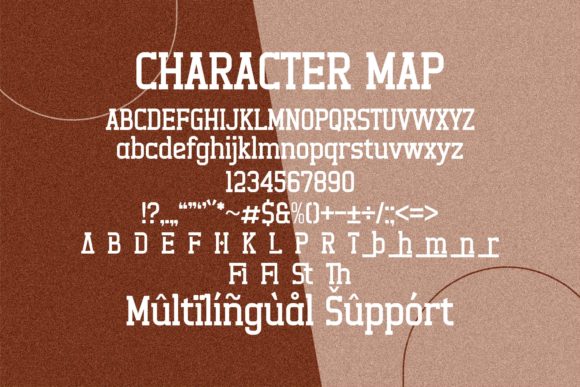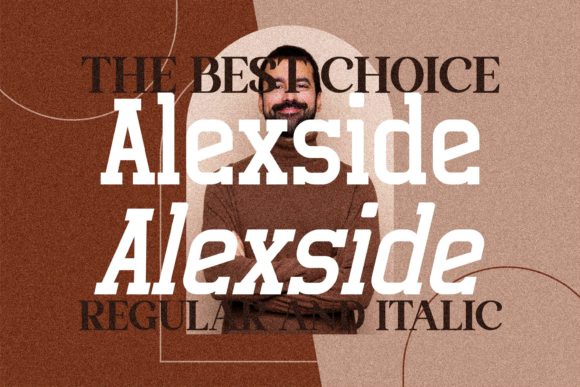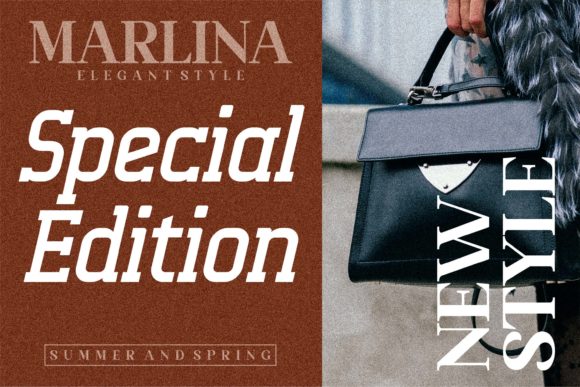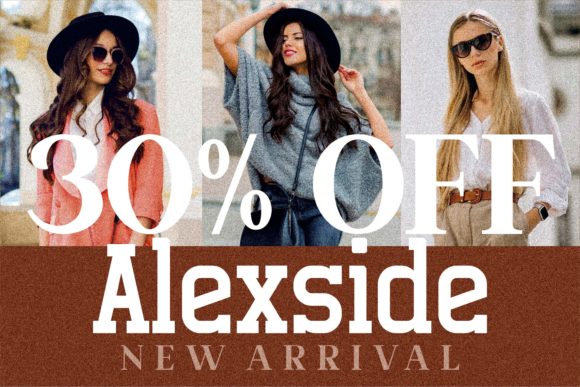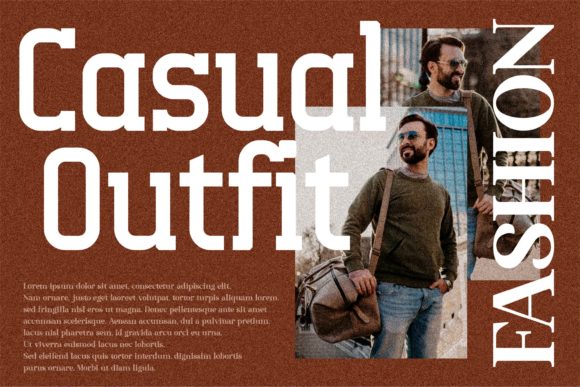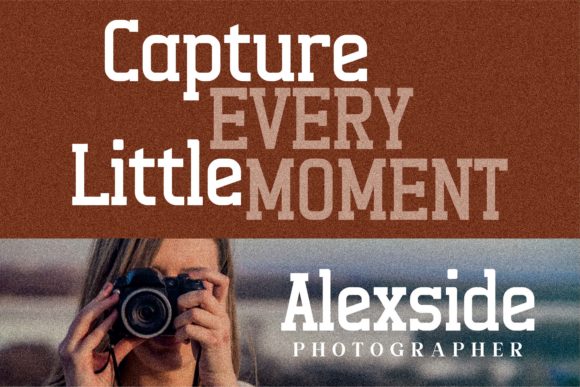
Introducing Alexside Font: The Ultimate Choice for Bold and Edgy Designs
Are you tired of using the same old fonts for your designs? Look no further than Alexside Font, a cool and bold slab serif font that’s out of this world! Expertly designed to make your creation stand out from the crowd, Alexside Font is the perfect choice for designers and crafters who want to add a touch of edginess to their work.
What is Alexside Font?
Alexside Font is a slab serif font that’s characterized by its bold and rugged appearance. The font features thick, block-like serifs that give it a unique and distinctive look. The letters are carefully crafted to be highly legible, making it perfect for use in a variety of design projects, from posters and flyers to logos and branding materials.
Key Features of Alexside Font
So, what makes Alexside Font so special? Here are just a few of its key features:
- Bold and Edgy Appearance: Alexside Font has a bold and rugged appearance that’s perfect for designers who want to add a touch of edginess to their work.
- Highly Legible: The font is carefully crafted to be highly legible, making it perfect for use in a variety of design projects.
- Slab Serif Design: The font features thick, block-like serifs that give it a unique and distinctive look.
- Versatile: Alexside Font is perfect for use in a variety of design projects, from posters and flyers to logos and branding materials.
Why Choose Alexside Font?
So, why should you choose Alexside Font for your next design project? Here are just a few reasons:
- Stand Out from the Crowd: With its bold and edgy appearance, Alexside Font is sure to make your design stand out from the crowd.
- Add a Touch of Edginess: If you want to add a touch of edginess to your design, Alexside Font is the perfect choice.
- Perfect for Bold Designs: If you’re looking to create a bold and eye-catching design, Alexside Font is the perfect choice.
How to Use Alexside Font
Using Alexside Font is easy! Here are just a few tips:
- Pair it with Other Fonts: Alexside Font pairs well with other fonts, so feel free to experiment with different combinations.
- Use it for Headings: Alexside Font is perfect for use in headings and titles, where its bold and edgy appearance can really make an impact.
- Experiment with Different Colors: Alexside Font looks great in a variety of colors, so don’t be afraid to experiment and find the perfect color for your design.
In conclusion, Alexside Font is a cool and bold slab serif font that’s perfect for designers and crafters who want to add a touch of edginess to their work. With its highly legible design and versatile appearance, Alexside Font is the perfect choice for a variety of design projects. So why not give it a try and see the difference it can make?